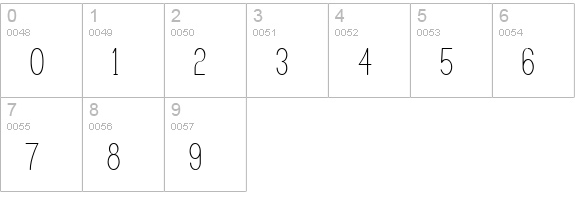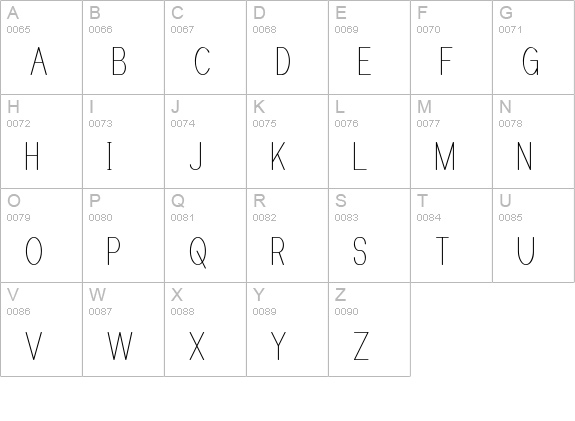
Castorgate - Upright Font Details
Castorgate - Upright font is a modern and versatile typeface that exudes elegance and sophistication. With its clean lines and sharp edges, this font is perfect for creating sleek and professional designs. Whether you're working on branding materials, website designs, or print projects, Castorgate - Upright font will add a touch of refinement to your work. The best part? Castorgate - Upright font is available for free download at FontsMarket.com. This means you can easily access this high-quality font without having to worry about any additional costs. Don't miss out on the opportunity to elevate your designs with Castorgate - Upright font - download it today and see the difference it can make in your projects.